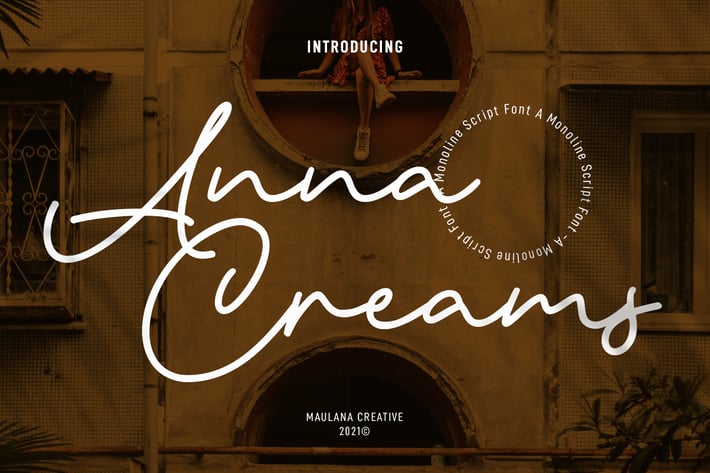
Anna Creams Monoline Script Font
Anna Creams is a Unique romantic modern script font. With regular mono-line stroke, fun character with some of ligatures. To give you an extra creative work. Anna Creams font support multilingual more than 100+ language. This font is good for logo design, Social media, Movie Titles, Books Titles, a short text even a long text letter and good for your secondary text font with sans or serif. Make a stunning work with Anna Creams font.